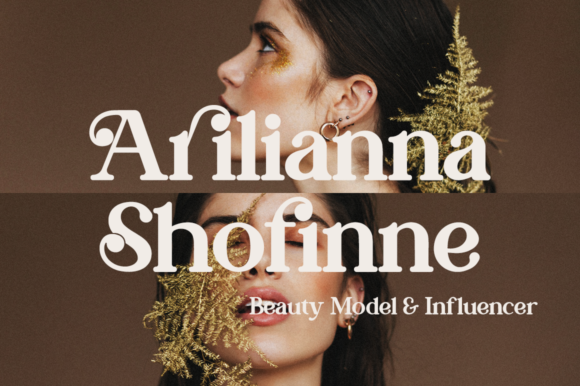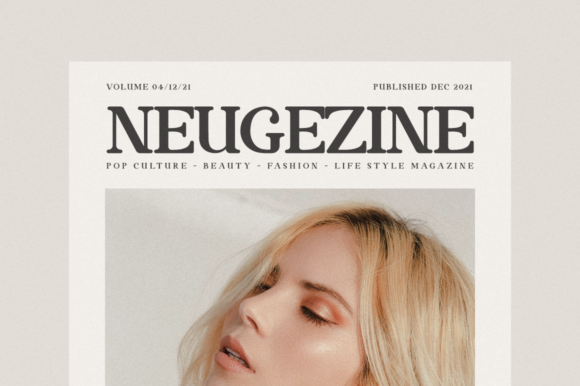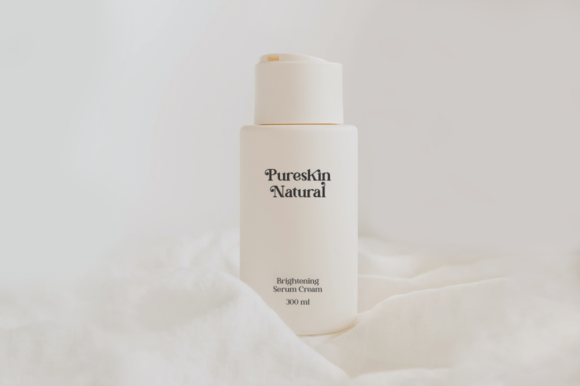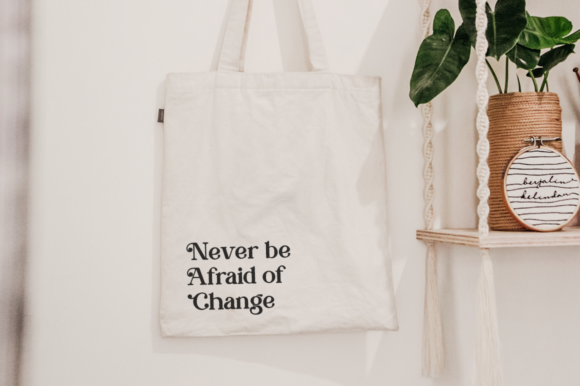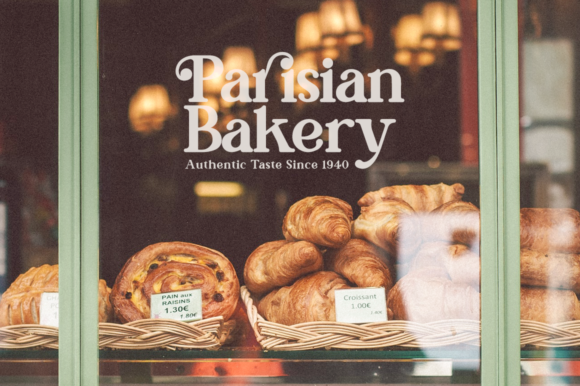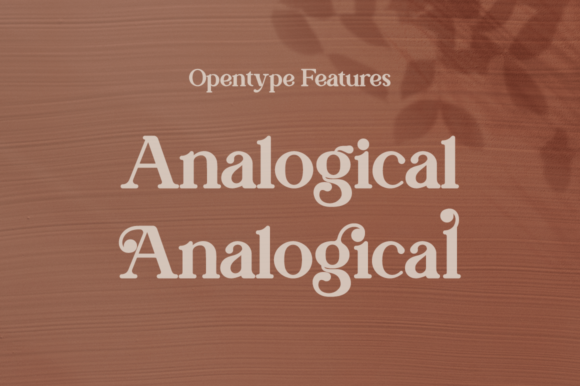
Introducing Contagia Font: Elevate Your Designs with a Trendy Serif
In the world of typography, fonts play a crucial role in conveying the message and aesthetic of a design. For designers and crafters looking to add a touch of nostalgia and sophistication to their projects, Contagia Font is an excellent choice. This stylish serif font is not only visually appealing but also highly functional, making it perfect for a wide range of applications.
What Makes Contagia Font Stand Out?
Contagia Font is a trendy and stylish serif font that exudes confidence and dynamism. Its strong presence makes it ideal for headlines, titles, and any design element where you want to grab attention. The font’s classic serif structure provides a sense of tradition and reliability, while its modern twists and elegant lines give it a fresh and contemporary feel.
One of the key features of Contagia Font is its PUA (Private Use Area) encoding. This means that all glyphs and swashes are easily accessible, allowing designers to experiment with different styles and variations without hassle. PUA encoding ensures that you can make the most out of this font, adding your personal touch to designs and making them truly unique.
Perfect for Adding Nostalgic Character
Contagia Font has a special ability to add tons of nostalgic character to your designs. Its classic serif elements evoke a sense of vintage charm, making it perfect for projects that aim to capture the essence of bygone eras. Whether you’re working on a branding project, packaging, or editorial design, Contagia Font can help you create pieces that feel both timeless and current.
The versatility of Contagia Font is another one of its standout features. This font can be used across a variety of design applications, from digital media to print. It’s suitable for:
- Branding and Logos: Create memorable and impactful brand identities with Contagia’s strong and confident style.
- Packaging Design: Add an elegant touch to product packaging, making your brand stand out on store shelves.
- Editorial Design: Use Contagia Font in magazines, newspapers, and blogs to add a sophisticated flair to your typography.
- Advertising: Make your ads more compelling with a font that commands attention and communicates your message effectively.
Tips for Maximizing Contagia Font’s Potential
To get the most out of Contagia Font, consider the following tips:
- Experiment with Swashes: Take advantage of the PUA encoding to explore different swashes and glyphs, adding a unique spin to your designs.
- Mix and Match: Combine Contagia Font with other fonts to create interesting contrasts and visual hierarchies.
- Pay Attention to Spacing: Ensure that your text is easily readable by adjusting the spacing between letters and lines.
Contagia Font is a powerful tool for designers and crafters looking to elevate their projects with a trendy, stylish, and highly functional serif font. Its PUA encoding, nostalgic character, and versatility make it an excellent addition to any design toolkit. Whether you’re aiming to create a bold statement or add a touch of elegance, Contagia Font is sure to meet your needs and inspire your creativity.